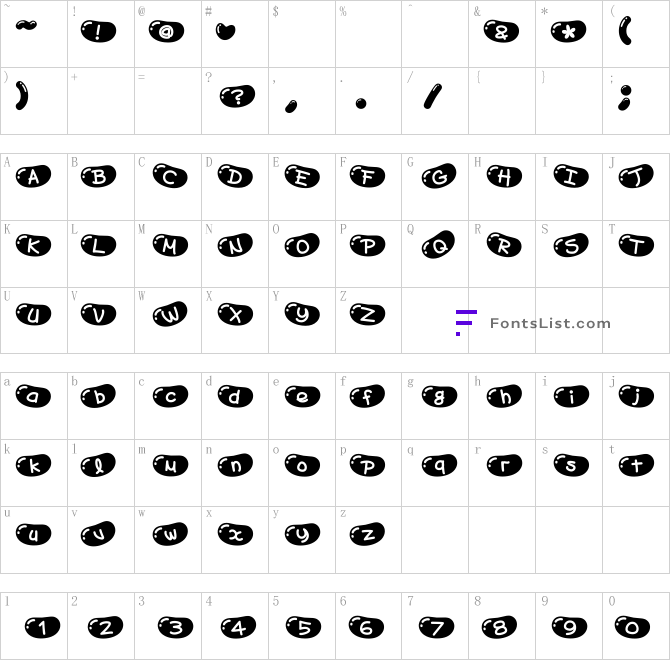
- Font Name:AKJellyBeans
AKJellyBeans.ttf is a very beautiful artistic font, AKJellyBeans.ttf is widely used in the design and printing of various books and pictures,AKJellyBeans.ttf has a strong visual impact,AKJellyBeans.ttf is a commonly used font in newspapers, magazines and books, and is used in posters, e-commerce Poster design, store design, logo design, font design and other fields.AKJellyBeans.